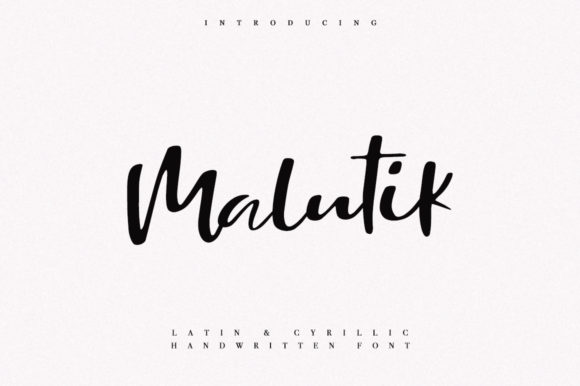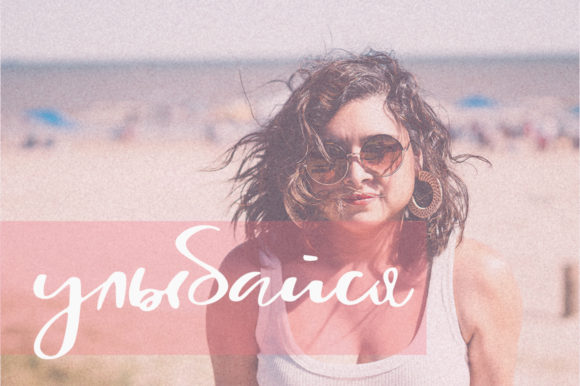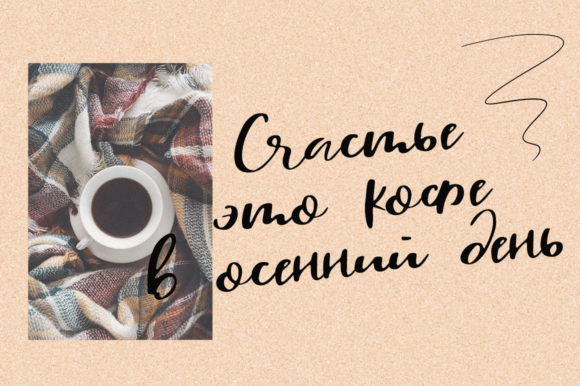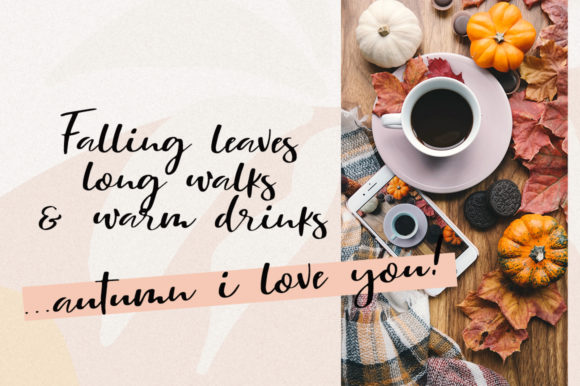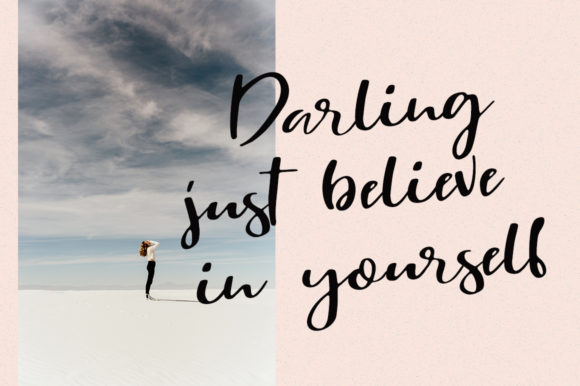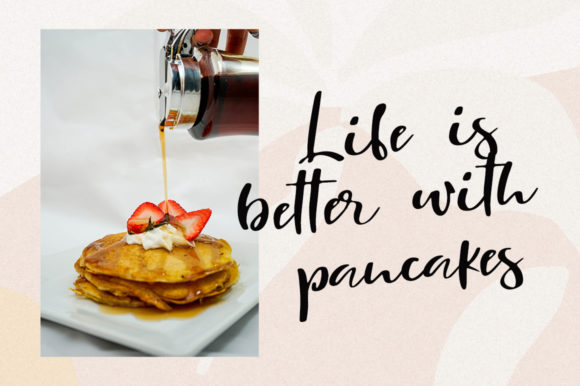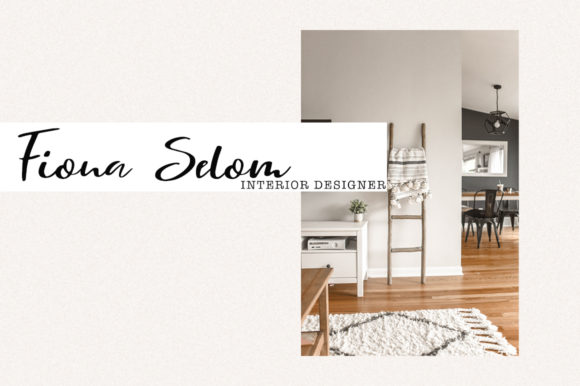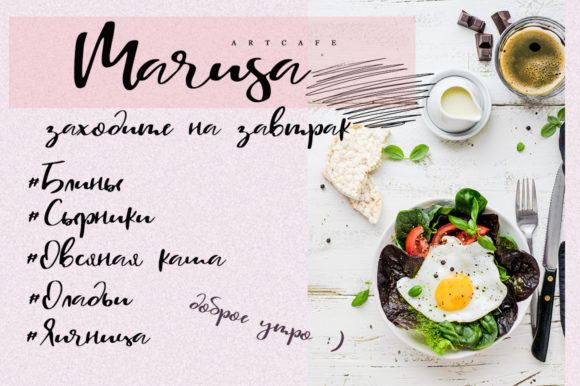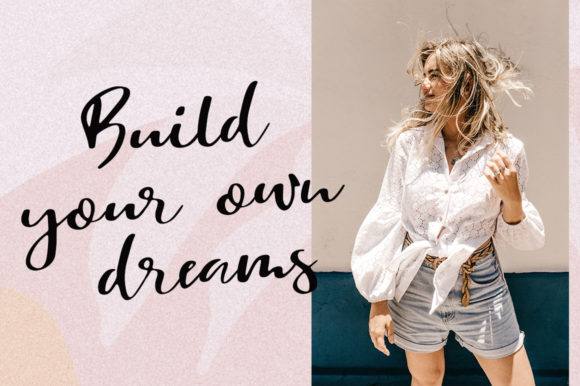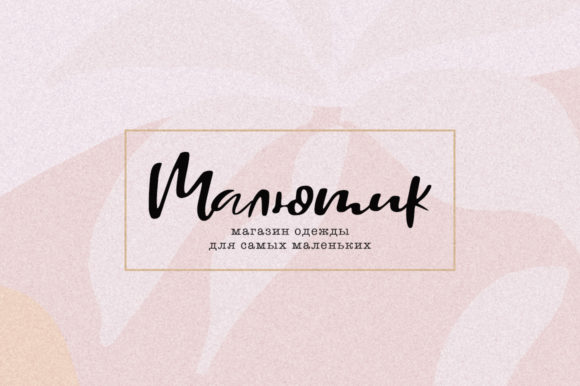
HomeScript FontsMalutik Font Script Fonts Malutik Font FacebookXPinterestWhatsApp Malutik Font Poster 2 Malutik Font Poster 3 Malutik Font Poster 4 Malutik Font Poster 5 Malutik Font Poster 6 Malutik Font Poster 7 Malutik Font Poster 8 Malutik Font Poster 9 Malutik Font Poster 10 About Malutik Font Malutik is a casual, yet elegant script font with a modern feel. Get inspired by its authentic simplicity. DOWNLOAD NOW People also explored Kathica Font Sunday Font Filosofia Script Font Heroisgod Font Sugano – Handwritten Font Arrows Dingbats Font Netherland Cracker Shibatung Pumpkin Ghost Font 283 0 TagsMalutik Font Previous articleNaibacarte FontNext articleMelodina Script Font LEAVE A REPLY Cancel reply Comment: Please enter your comment! Name:* Please enter your name here Email:* You have entered an incorrect email address! Please enter your email address here Website: Save my name, email, and website in this browser for the next time I comment. Personal Use Free White Rose Personal Use Free Read more about this font Hello, How Are You? Personal Use Free Read more about this font Dimensional Look71 Personal Use Free Read more about this font Cute Messy Personal Use Free Read more about this font BLOG Where to Buy American Fonts Online in 2024 Where to Buy American Fonts Online: The Ultimate Guide for 2024 Looking for the perfect American font to elevate your design projects? You're in the... Free Fonts Risk: Why Free Fonts Can Be Dangerous for Designers Transform Your Website: Elevate Your Typography with 7 Best Web Font Generators Best Fonts for YouTube Videos: Make Your Thumbnails Stand Out